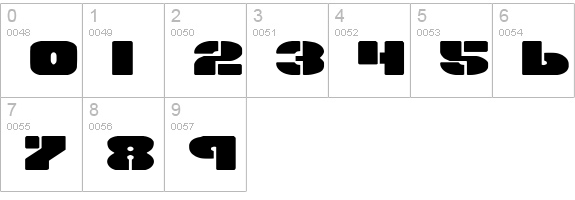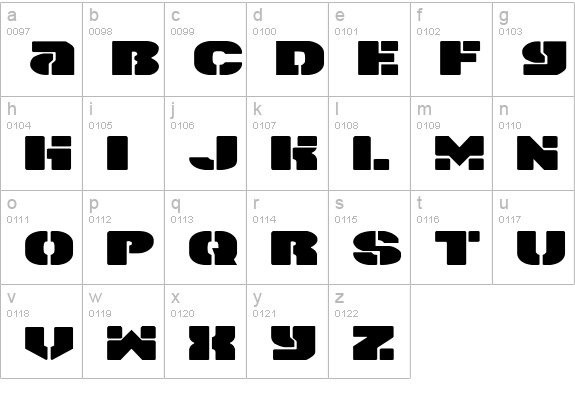
Space Cruiser Expanded Font Details
Space Cruiser Expanded is a distinctive, extended-width variant in the Space typeface family \xE2\x80\x94 well suited to design and typography projects.
Space Cruiser Expanded is a visually stunning and versatile font that captures the essence of futuristic space travel. With its sleek and streamlined design, this font is perfect for creating captivating and attention-grabbing headlines, logos, and titles. The expanded version of the font offers additional width, allowing for more impact and presence on the page. What sets Space Cruiser Expanded apart is not just its aesthetic appeal, but also its accessibility. This font is freely available to download at FontsMarket.com, making it an invaluable resource for designers, creatives, and enthusiasts alike. Whether you are a professional graphic designer or a hobbyist looking to add a touch of intergalactic flair to your projects, Space Cruiser Expanded is the perfect choice. With its clean lines and modern look, this font is incredibly versatile and can be used across a wide range of design projects. From science fiction book covers to futuristic movie posters, Space Cruiser Expanded adds a touch of sophistication and excitement to any composition. Its bold and commanding presence on the page makes it an ideal choice for conveying a sense of adventure, exploration, and cutting-edge technology. Space Cruiser Expanded is more than just a font - it is a gateway to a world of endless creative possibilities. Its free availability on FontsMarket.com allows designers to experiment and explore without constraints, unlocking their imagination and pushing the boundaries of design. Whether you are aiming for a sleek and minimalistic look or a bold and dynamic aesthetic, this font has you covered. Download Space Cruiser Expanded today from FontsMarket.com and embark on a journey to the stars. Unleash your creativity and bring your designs to new heights with this captivating and innovative font. Let Space Cruiser Expanded be your companion as you venture into the unknown, and watch as your designs soar to new frontiers.